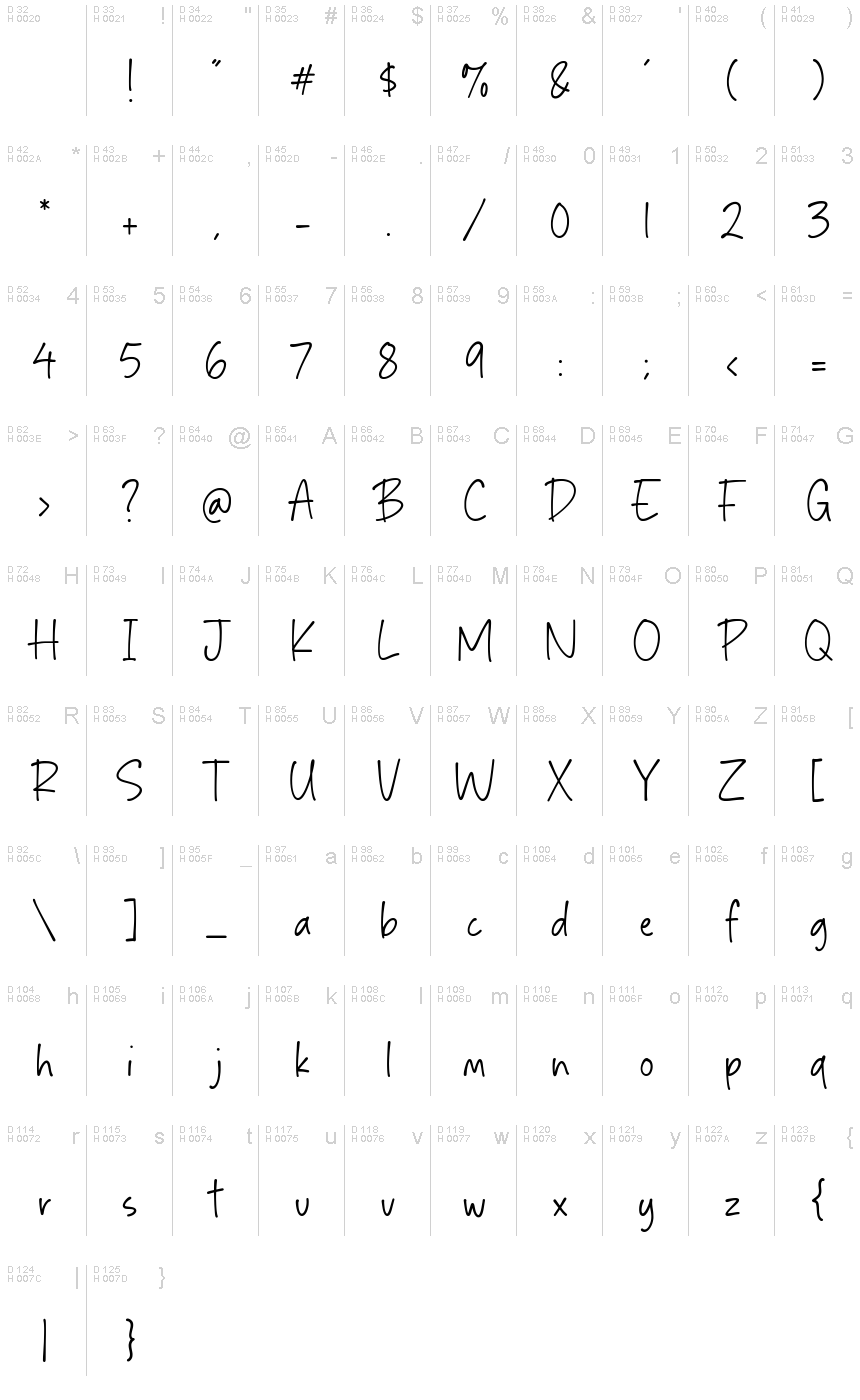
Black Mystique
Black Mystique emerges from the creative mind of Timur Type, bringing with it an air of enigma wrapped in a handwritten style. Its gentle strokes glide across the page, light and unassuming, yet they carry a subtle strength that resonates with each character's distinctive flair. This font whispers elegance and personal touch, reminiscent of secret correspondence and intimate journals.
Ideal for projects that require a touch of intimacy or sophistication, Black Mystique lends itself beautifully to invitations, branding materials, and literary works where personality is key. Its effortless grace ensures that your message is not just seen but felt, inviting readers into a world crafted by hand with care and mystique.